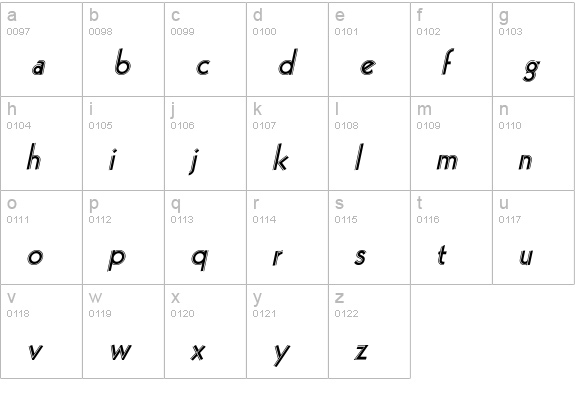
Hollywood Italic is a distinctive, italic variant in the Hollywood typeface family \xE2\x80\x94 well suited to design and typography projects.
Introducing Hollywood Italic font, a sleek and stylish typeface that exudes elegance and sophistication. With its slanted and eye-catching design, this font is perfect for adding a touch of glamour to any project. Ideal for use in movie posters, fashion magazines, and luxury branding, Hollywood Italic is sure to make a statement. The best part? Hollywood Italic font is available for free download at FontsMarket.com. Don't miss out on the opportunity to enhance your designs with this exquisite font without breaking the bank. Download Hollywood Italic today and elevate your projects with a touch of Hollywood glamour.